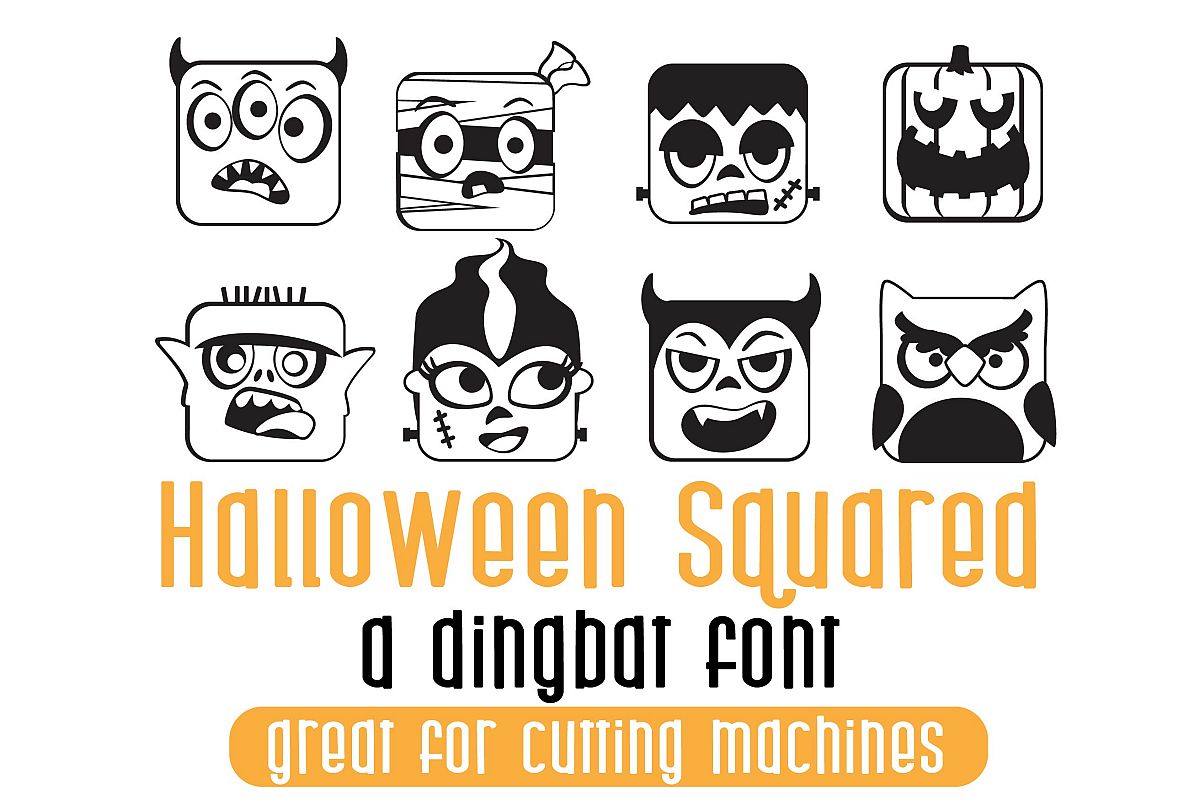
DB Halloween Squared
This dingbat font features various monsters heads all squared off in cute little stamps. These glyphs were made with care so they can be cut on a cutting machine.
Font includes the same characters in both the upper and lowercase.